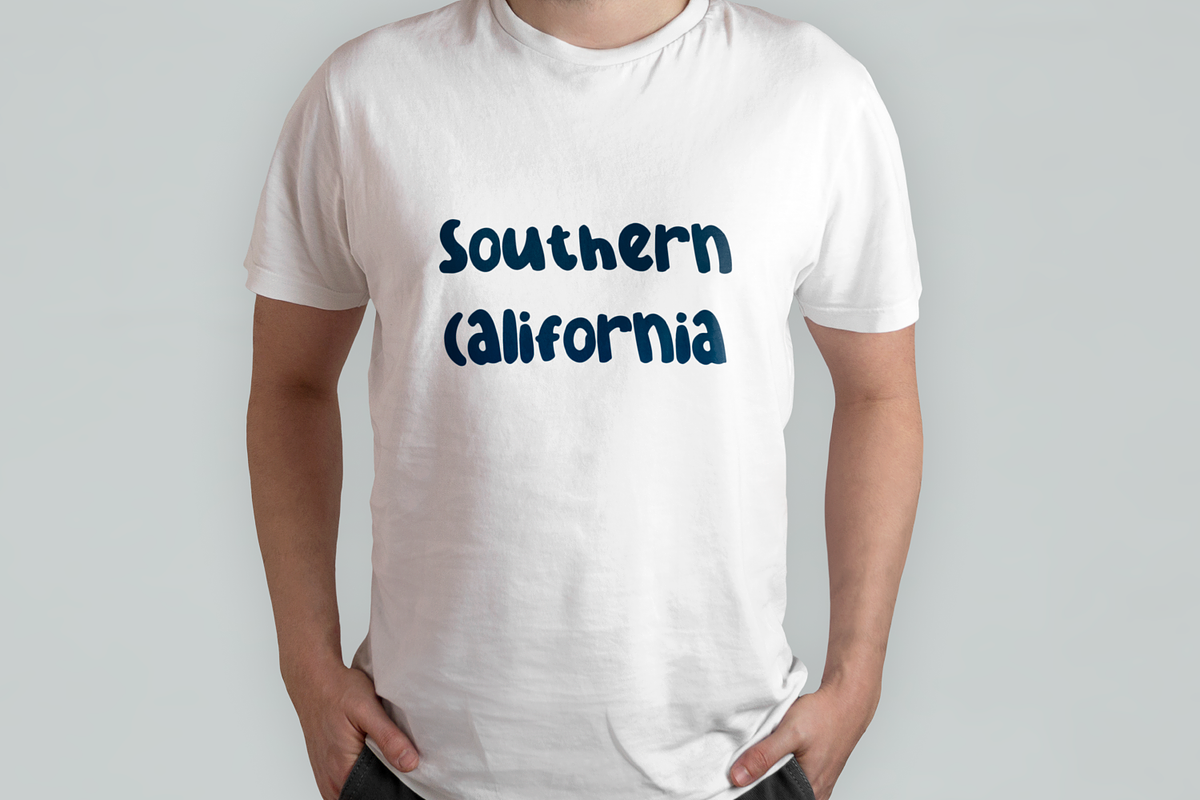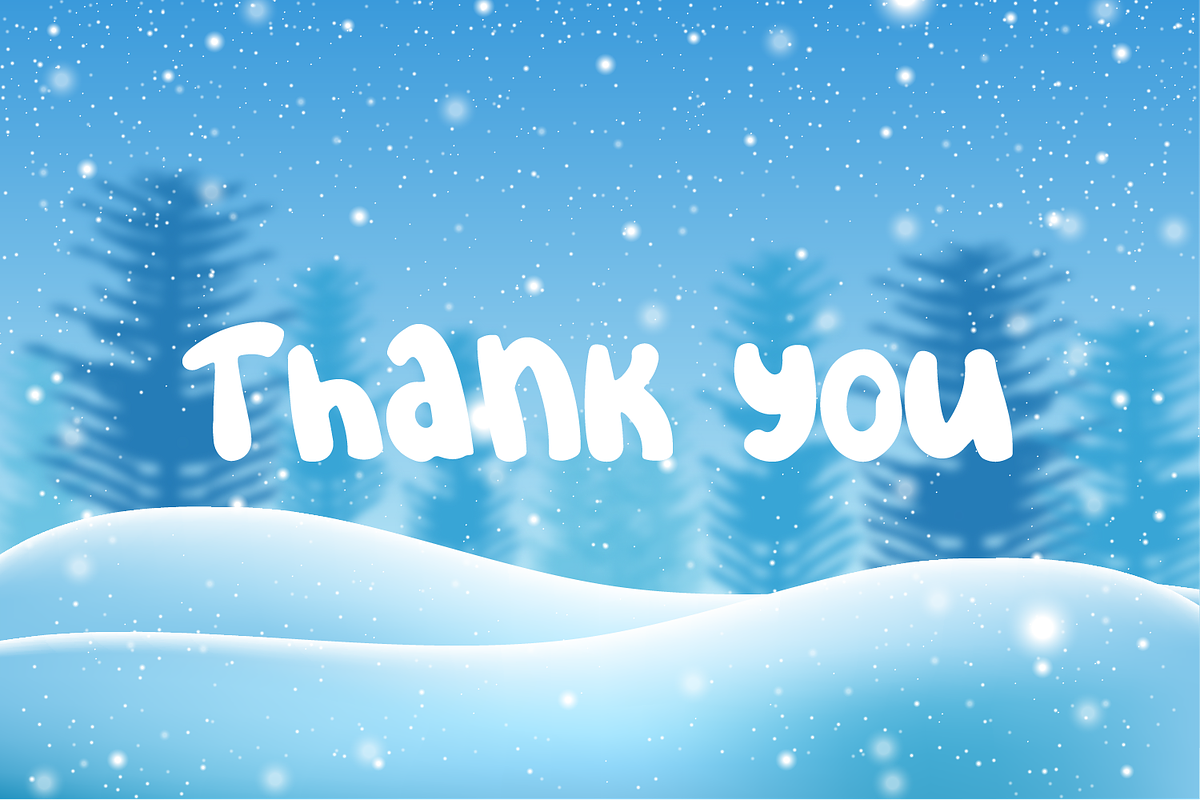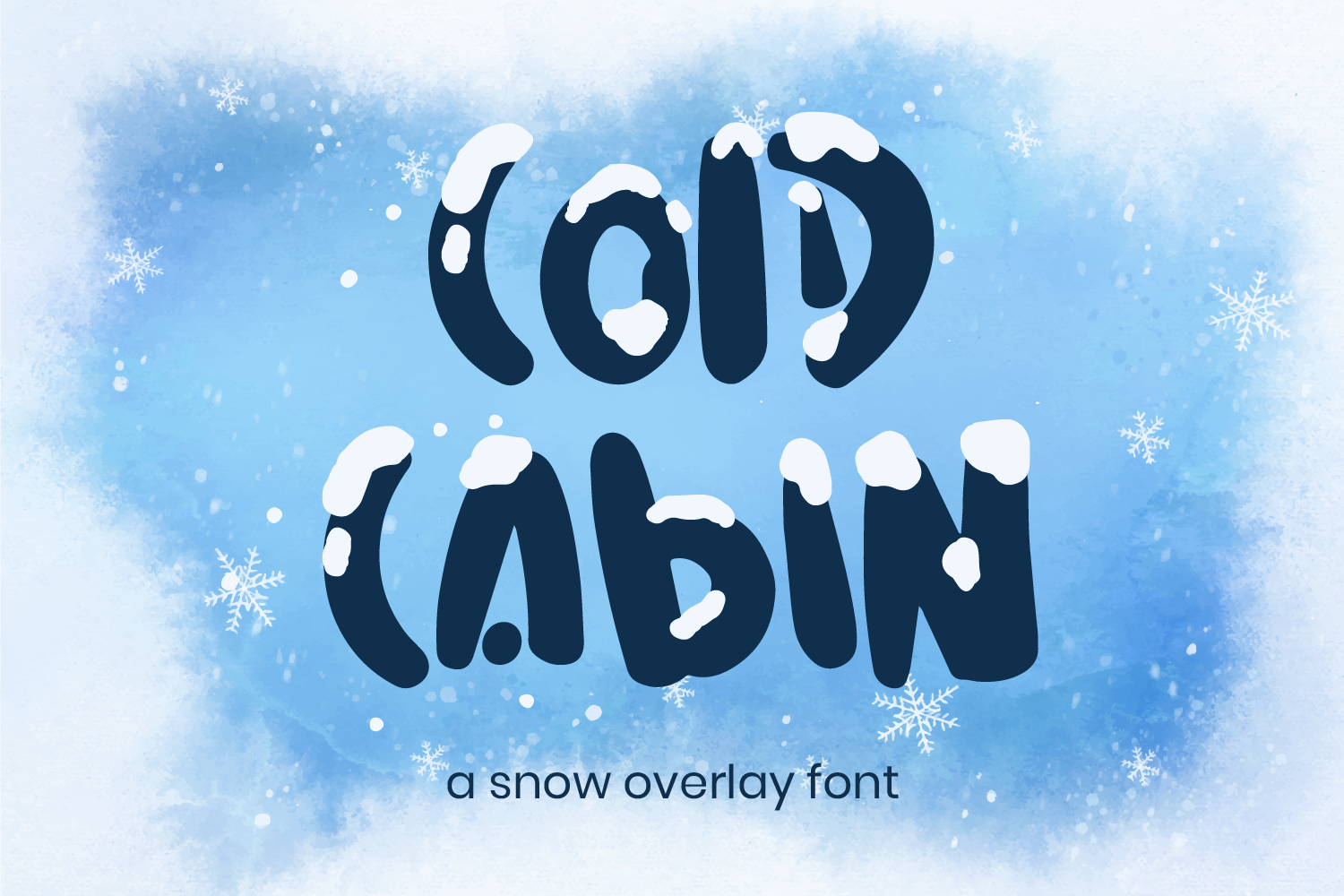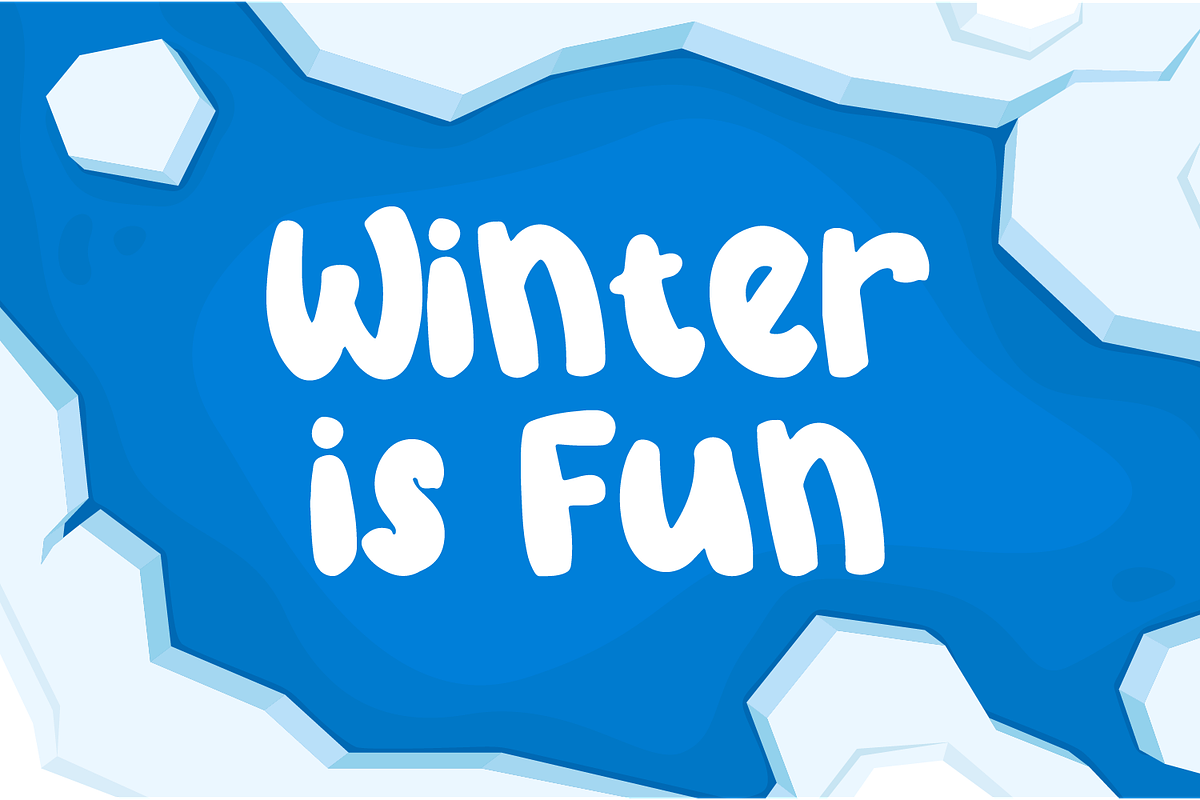
Cold Cabin Snow Overlay Font
Cold Cabin is a fun and bold handwritten font carefully created with a touch of creativity. Whether you’re looking for fonts for Instagram or DIY projects snow and winter theme, this font will turn any creative idea into a true piece of art!
Variety of Snow Overlays in every single letter to elevate your design game to the next level. Cut the process more because it should be easy.
Perfectly fit for the visual project such as logo, branding, poster, food and beverages, social media content, website, youtube thumbnail, mood board, wedding, you name it.